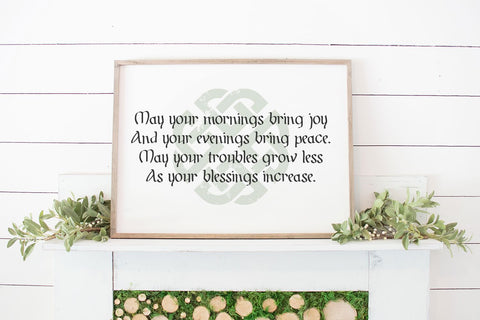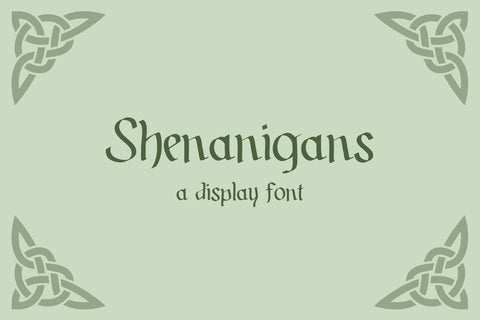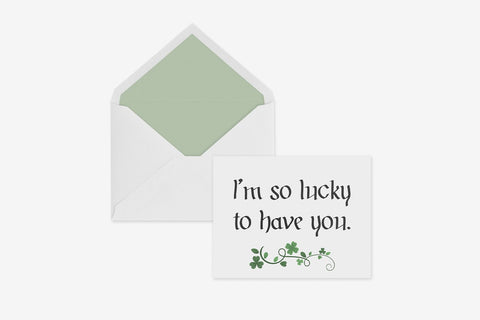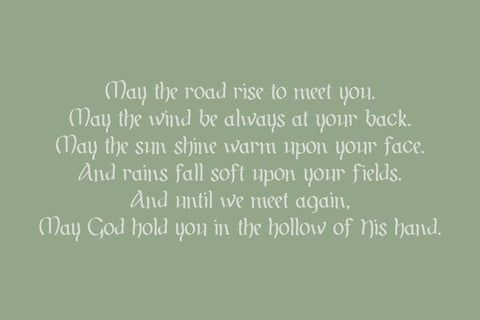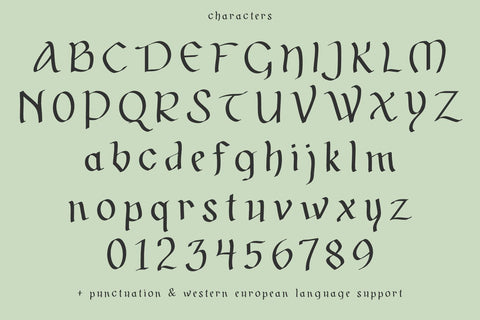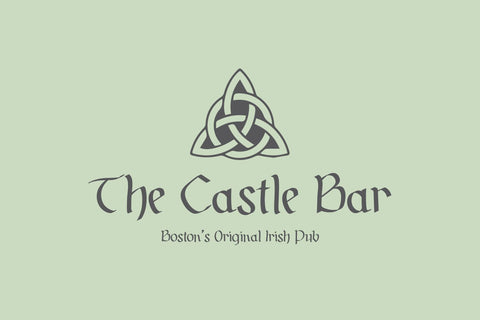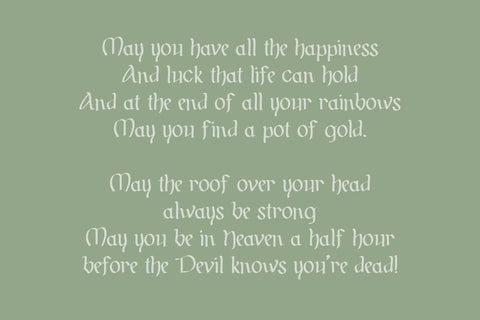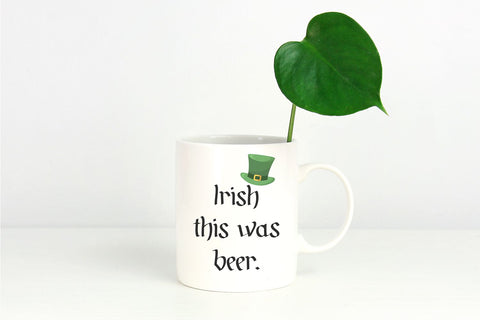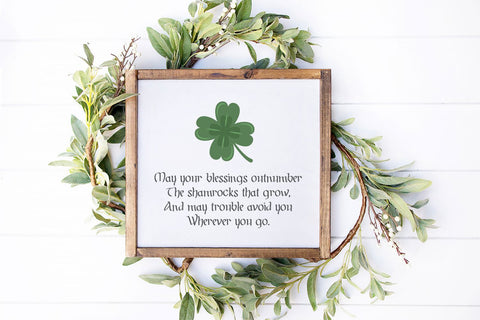
Shenanigans - Irish Display Font
Meet Shenanigans, a Celtic manuscript-inspired font. Shenanigans is hand lettered & super legible. This font would be a perfect fit for a variety of projects - use for professional projects or totally crafty projects. Shenanigans is perfect for logos & branding projects, elegant paper products like wedding invitations, website headlines & headers, print design like magazines or flyers, social media, marketing, & more.
- full upper + lowercase characters
- numbers + punctuation